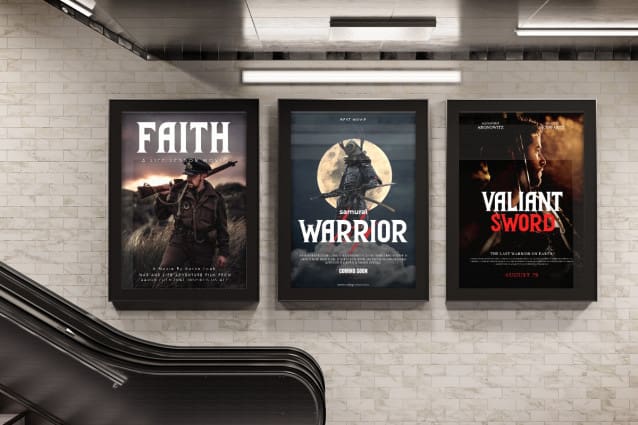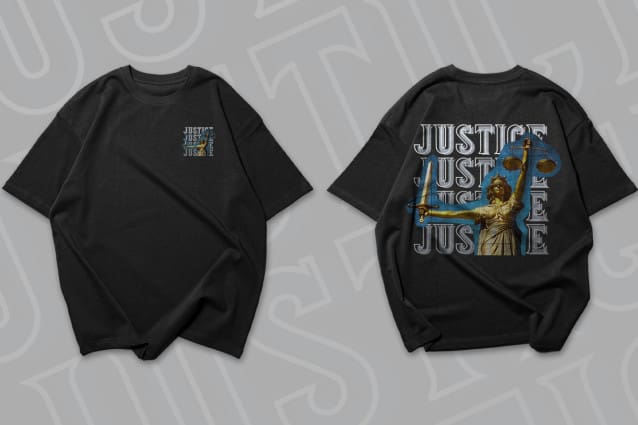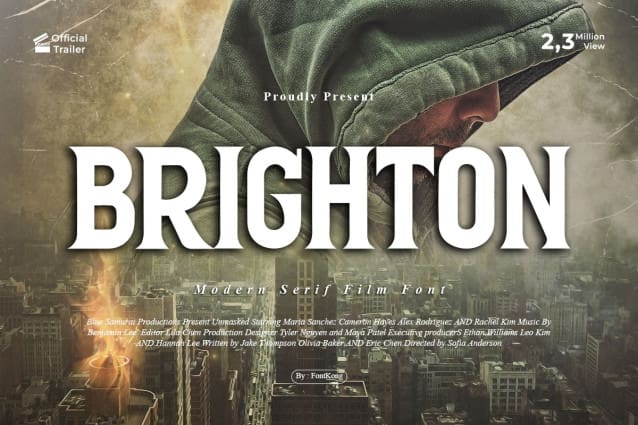
Brighton Serif Font
Brighton Serif Font – Modern Serif Film Font provides a new look different from the general serif fonts. The characteristics of a serif font that has an additional serif remain in this font, but the existing serif follows the actual font shape. Thunderbolt Serif Font is a serif font that looks clean, simple, and upright. It can be used as a bold font and modern font.
Brighton Serif Font – Modern Serif Film Font has many matches when combined with the product. Brighton Serif Font – Modern Serif Film Font is the best film font. This font can be used to display film titles, openings, and cinema posters. Fashion brand tags such as clothing will be compatible if applied with this type of font. There is no need to add excessive pictures and ornaments because Fabious font has presented its identity where a simple yet classic impression radiates. Brighton Serif Font – Modern Serif Film Font is a typeface that can be used as digital fonts and print fonts. This font can be used as a title that appears first in intro videos that catch the viewer’s attention at a first impression.
Posters and magazine covers are especially appropriate when using the Brighton Serif Font – Modern Serif Film Font. This is because even though this font is a serif typeface, it can be seen clearly and can be distinguished by each letter. So this font is included in the legible font.